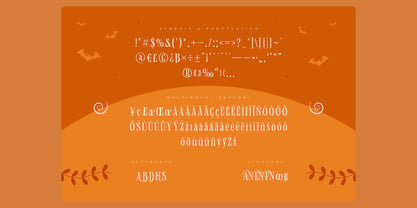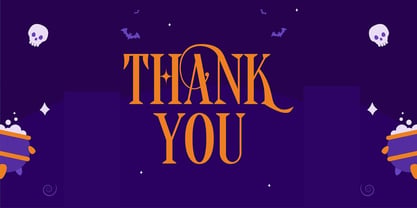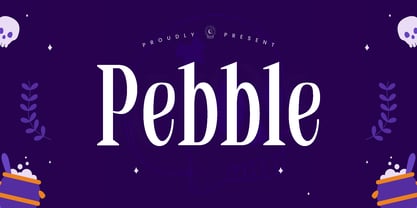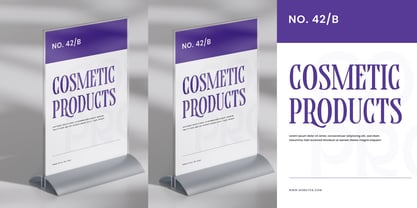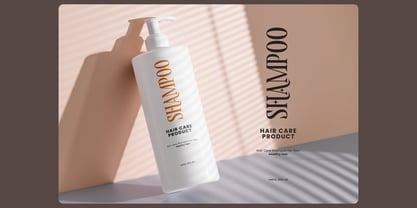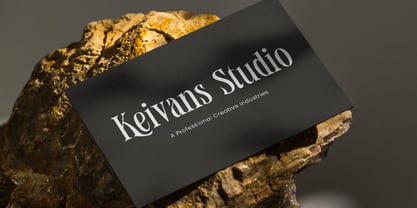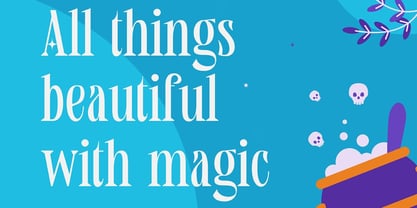
Pebble
The Pebble Font Family was designed by Olivia Love and published by Only Fonts. Pebble contains 1 styles. More about this family
Pebble is an enchanting serif typeface that effortlessly combines elegance with a magical, mystical appeal. Every character is carefully crafted with refined serifs and subtle ornamental details, channeling the spirit of fantasy and wonder into your designs. Pebble stands out for its graceful curves, ethereal charm, and timeless sophistication, making it perfect for projects that evoke a sense of mystery and beauty.​ Inspired by stories of enchanted lands and whimsical adventures, Pebble elevates book covers, branding, invitations, and fantasy-themed visuals with its distinctive, poetic character. The font’s ornamental touches and harmonious proportions bring a sense of magic to event stationery, editorial layouts, and decorative packaging, while remaining highly readable in both print and digital formats.​ Pebble offers a versatile feature set, including uppercase and lowercase letters, stylish ligatures, multilingual support, numerals, symbols, and punctuation. Whether you’re creating captivating headlines or imaginative product branding, Pebble infuses every composition with a spark of wonder and sophisticated artistry. Features: – Uppercase & Lowercase – Symbols & Punctuation – Numerals – Ligatures – Multilingual Support Perfect For: Book Covers - Branding - Wedding & Event Invitations - Packaging - Editorial Titles - Fantasy Projects - Social Media Graphics - Decorative Signage Pebble – A magical serif font that invites elegance, imagination, and mystical beauty to every creative project.